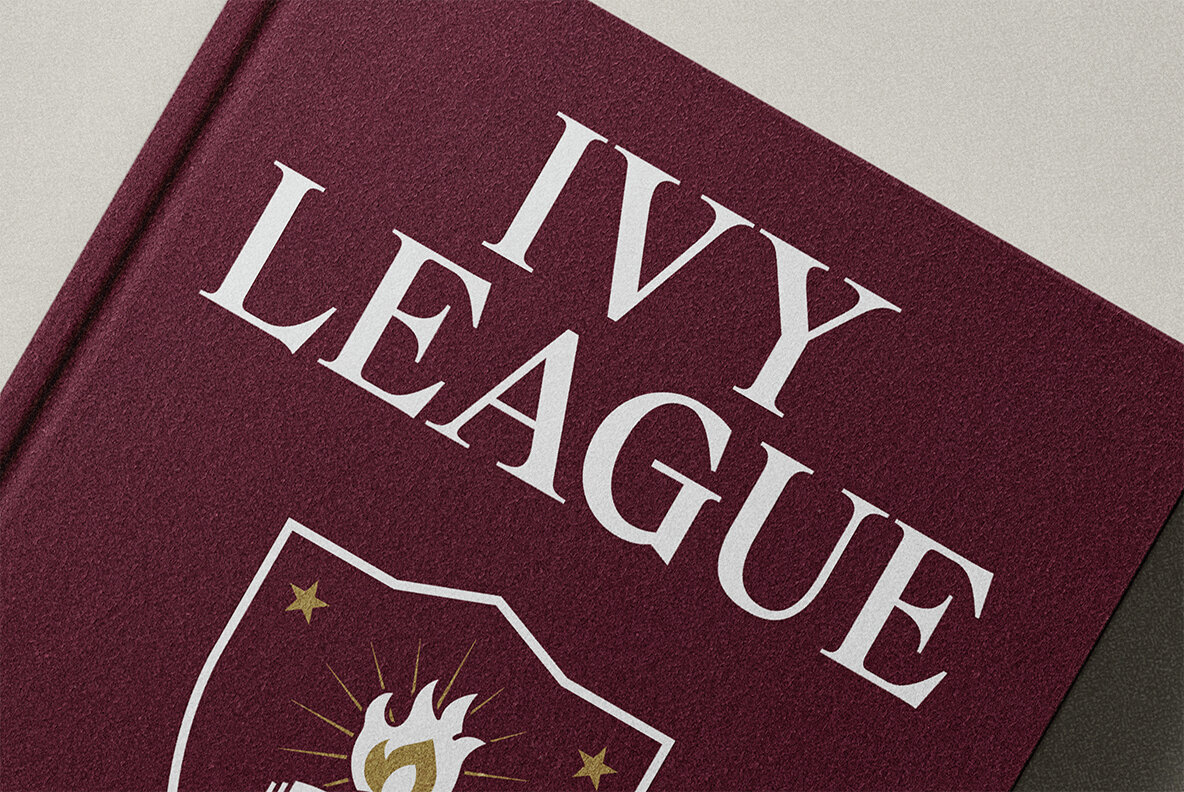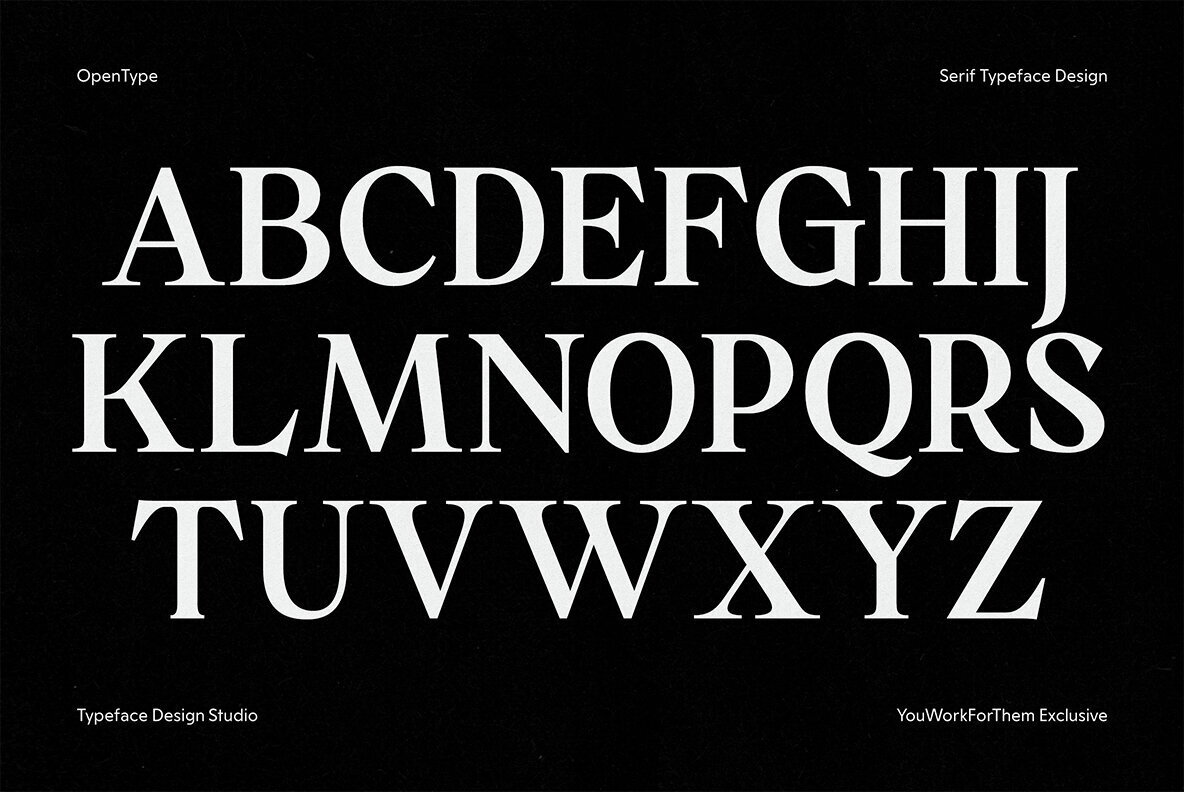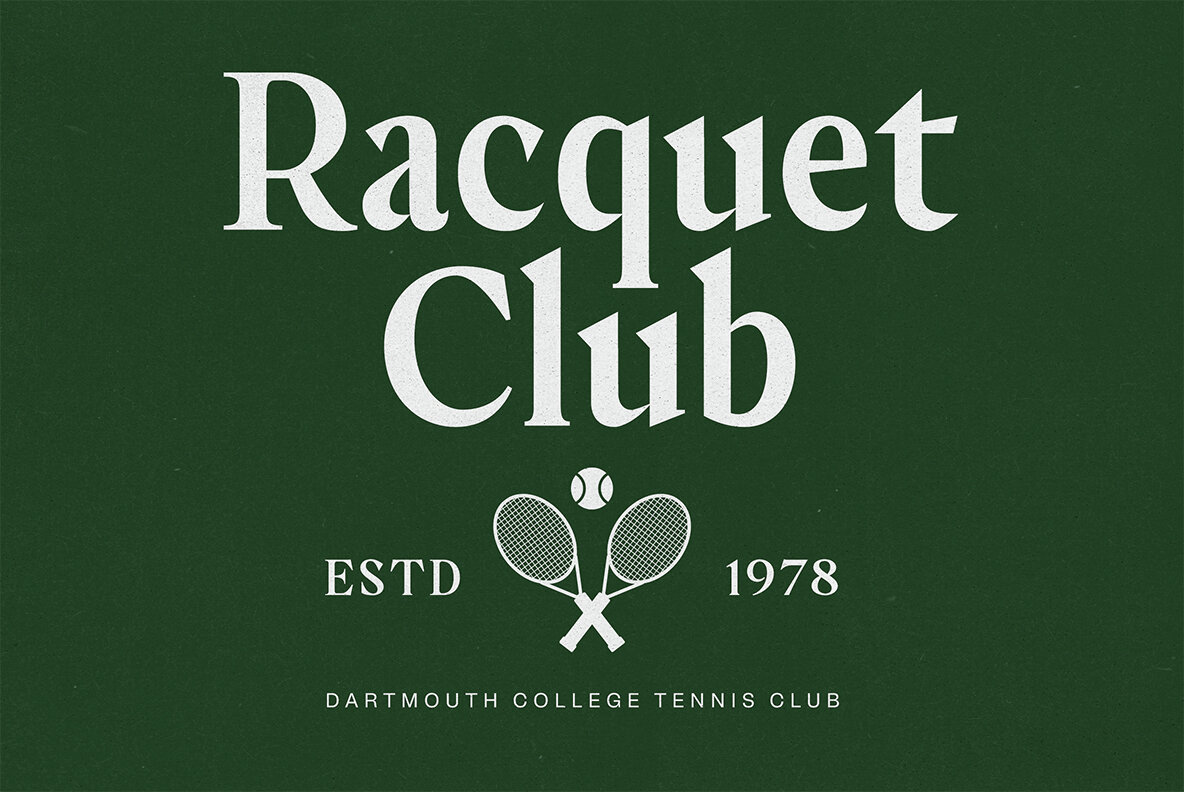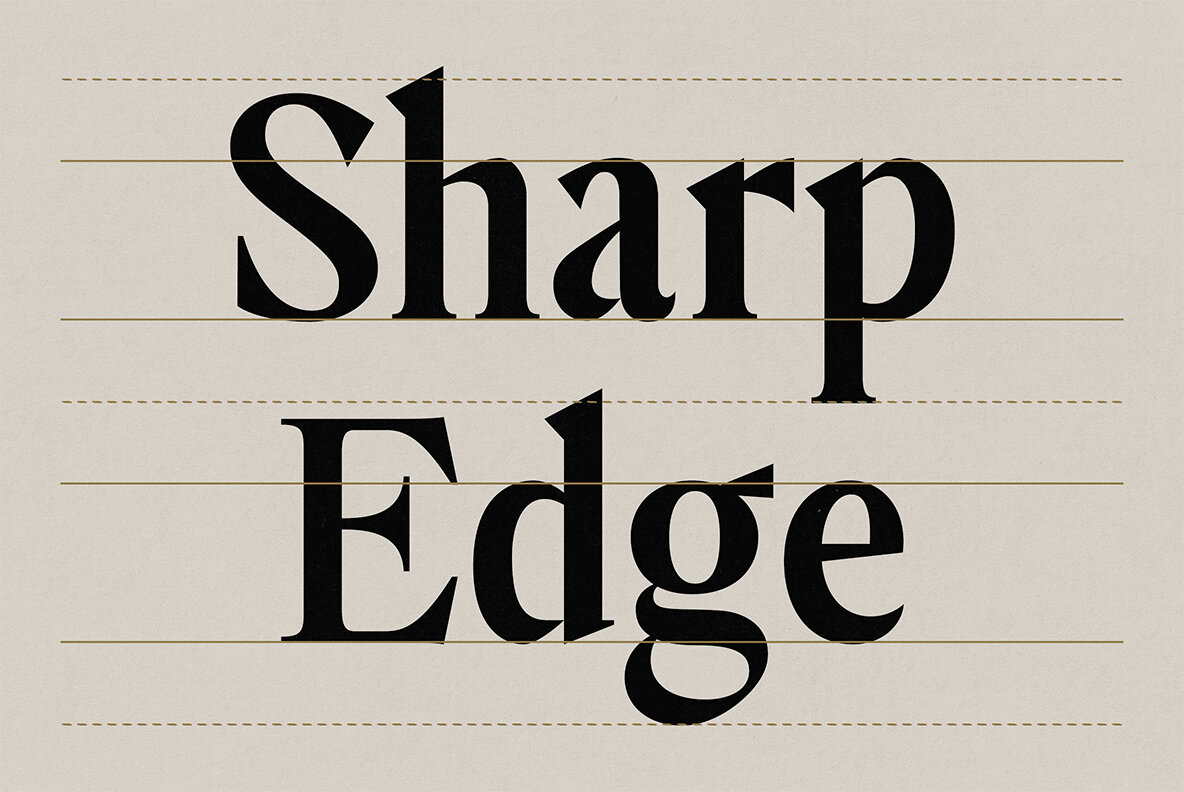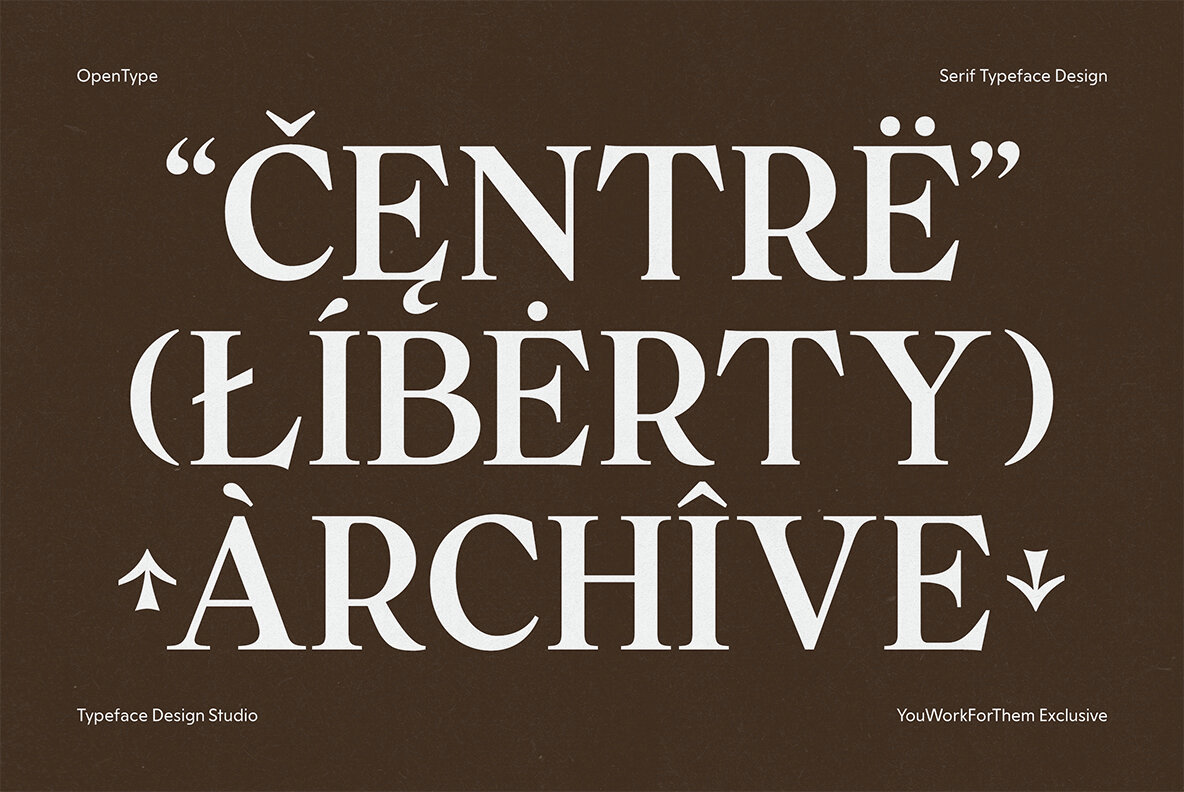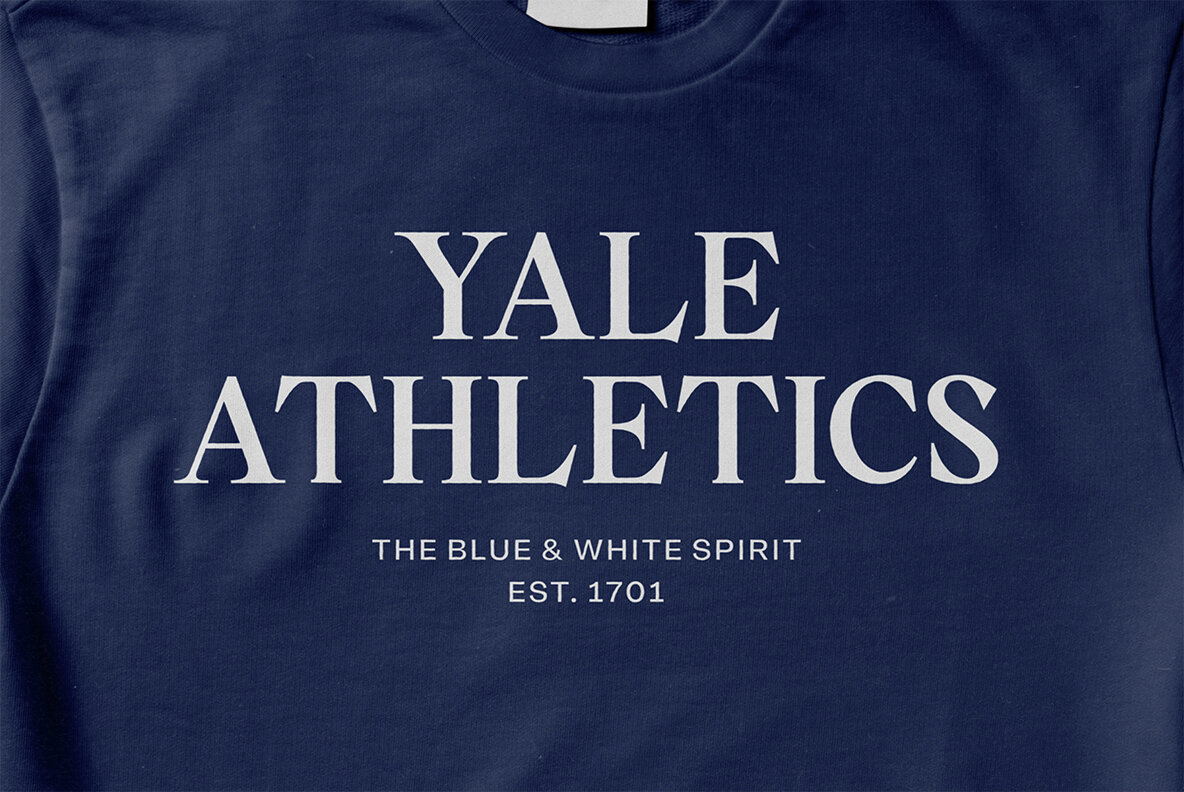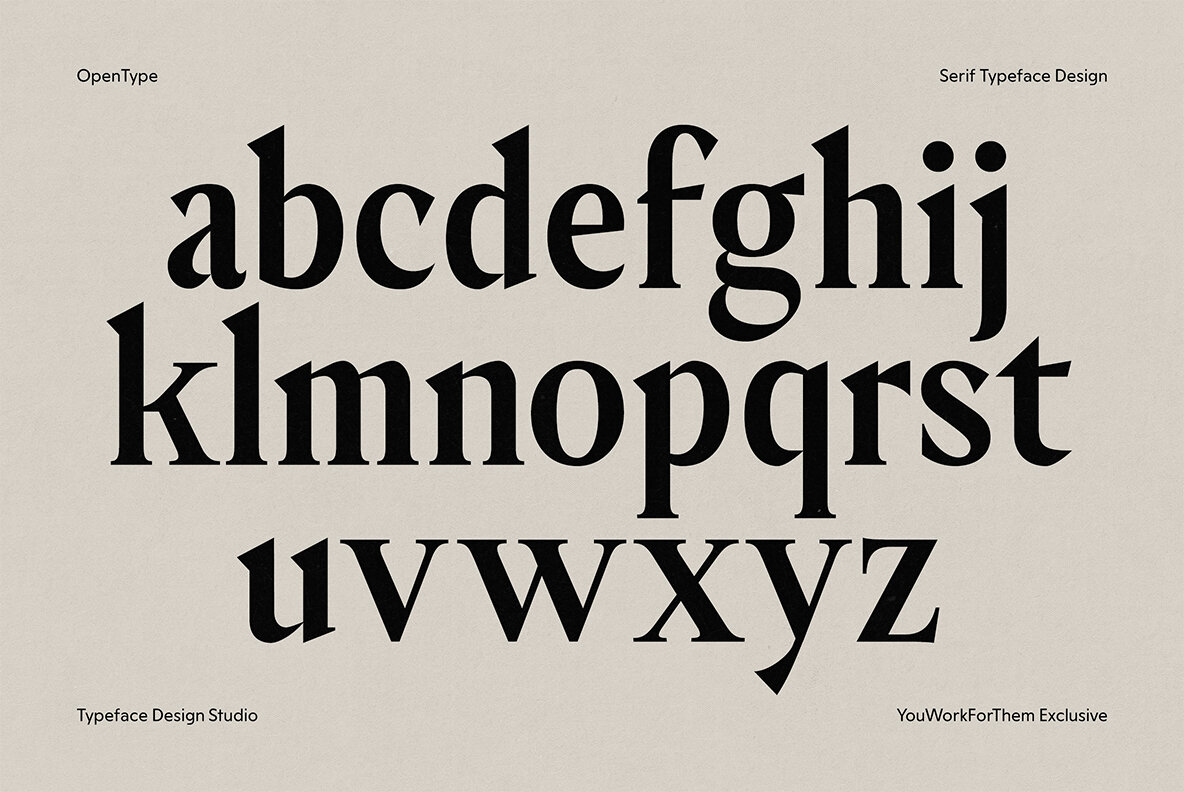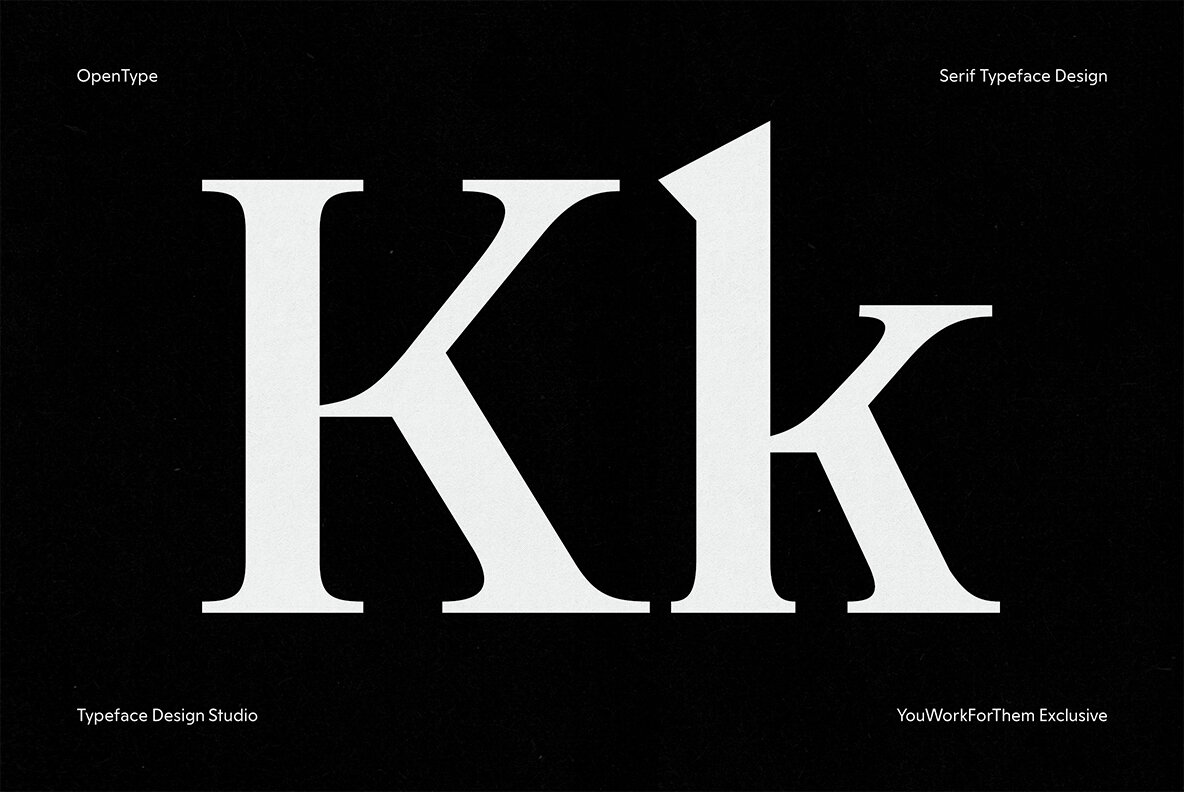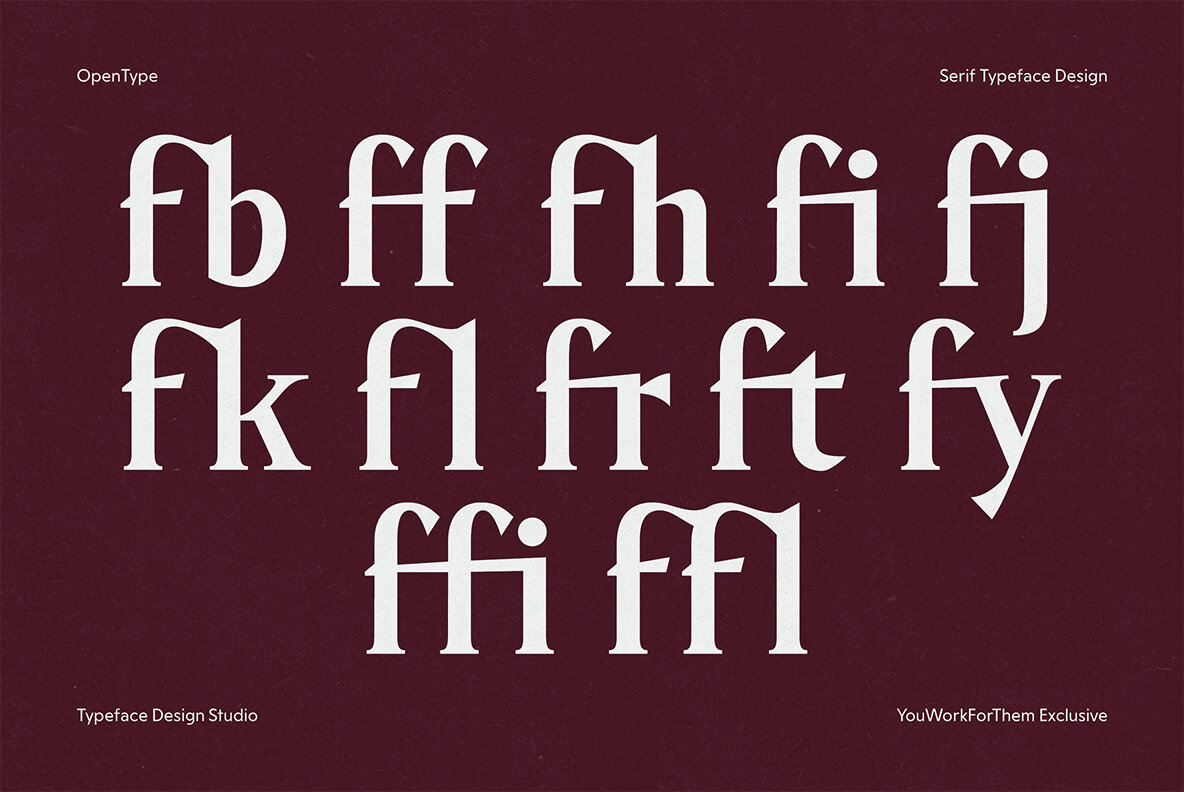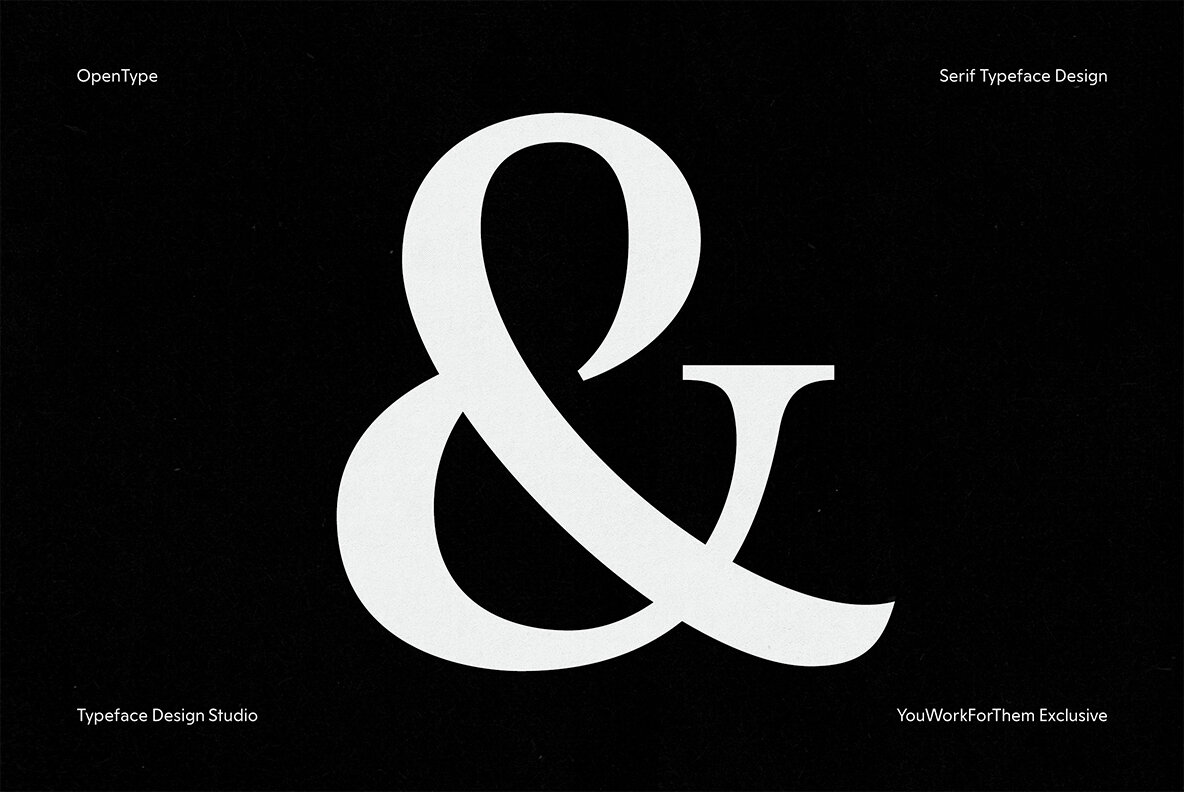
Frattle is a sophisticated serif font that exudes authority and clarity, making it the ideal choice for projects rooted in education, tradition, and professional excellence. Designed with inspiration from Ivy League institutions, this typeface bridges the gap between historical elegance and modern versatility, offering a refined look for formal and academic settings. With 379 glyphs and comprehensive OpenType features, Frattle is built for versatility and advanced typography. Its features include: This extensive range of features makes Frattle an exceptional tool for creating impactful designs with impeccable attention to detail. Frattle's transitional serif design features high contrast between thick and thin strokes, bringing a stately elegance to its letterforms. Its structure promotes legibility while maintaining a touch of heritage charm. This balance makes it well-suited for educational marketing, luxury branding, formal publications, and other scholar-centric projects. Additional products used for slideshow images:Frattle Typeface: Timeless Elegance for Educational and Professional Design
A Stately Typeface with Ivy League Prestige
Features and Functionality
Where Tradition Meets Functionality
Ideal Use Cases